Leg
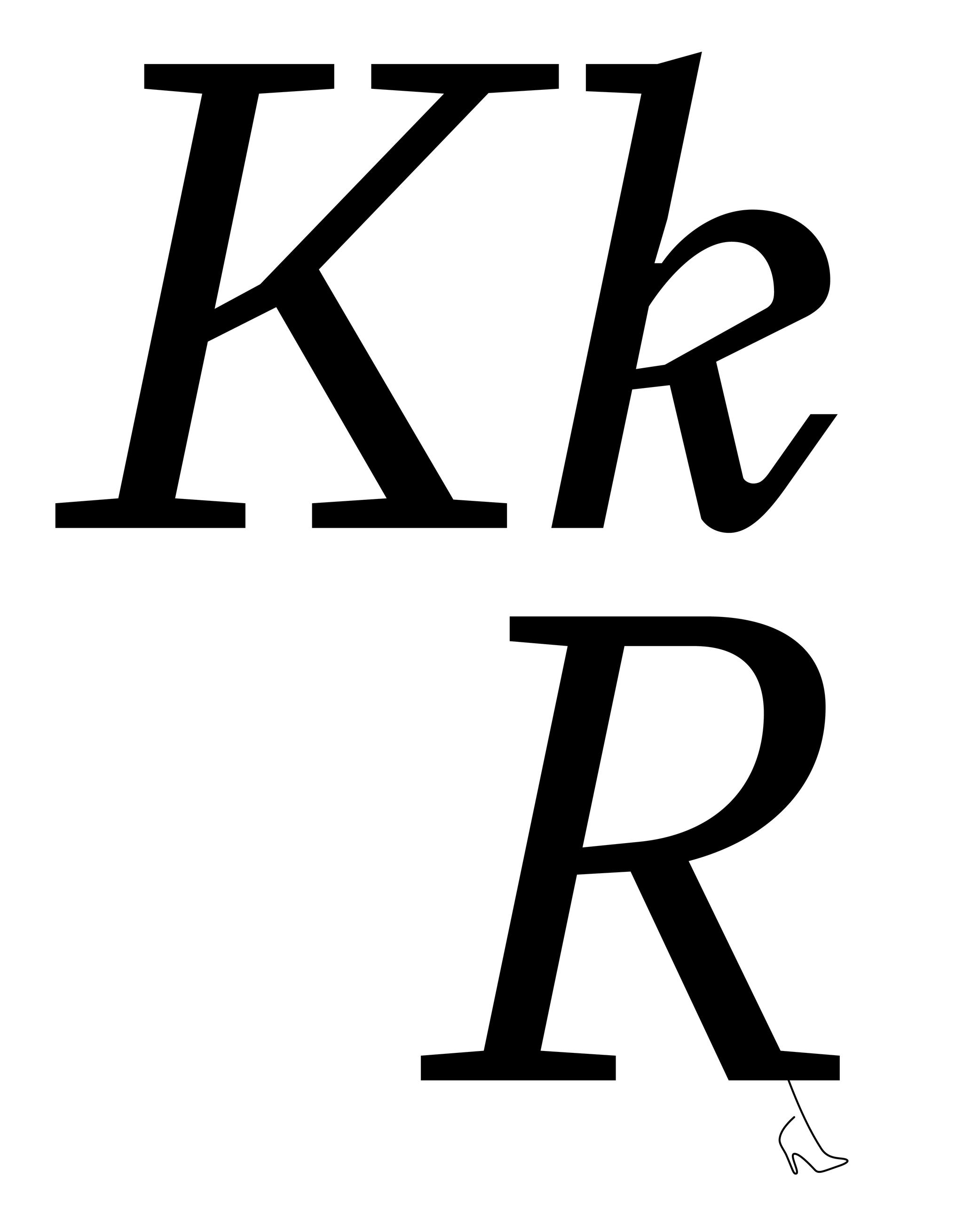
Many terms are borrowed from architecture or human and animal anatomy to designate and describe parts of letters and other characters. We even speak of type design anatomy.
In Latin script, the leg is the lower diagonal stroke of letters like R, k or K.